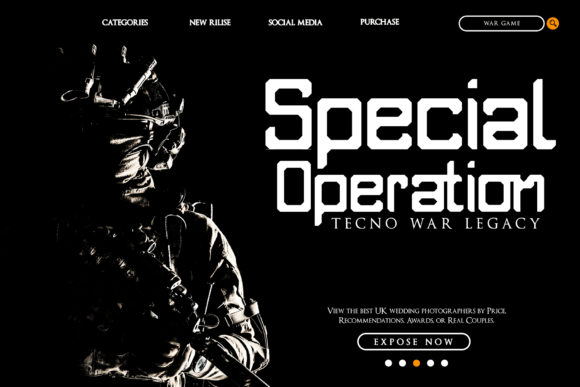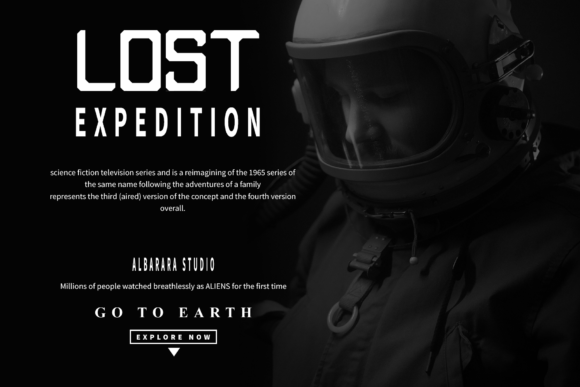
Introducing Amerggedon Font: The Modern and Cool Display Font for Designers and Crafters
Are you a designer or crafter looking for a modern and cool display font to elevate your creative projects? Look no further than Amerggedon Font, a stunning and versatile font designed by Kong Font Studio. In this article, we’ll dive into the features and benefits of Amerggedon Font, and explore how it can enhance your designs and crafts.
What is Amerggedon Font?
Amerggedon Font is a modern and cool display font that’s perfect for designers and crafters who want to add a touch of sophistication and style to their projects. With its sleek and contemporary design, Amerggedon Font is ideal for a wide range of applications, from logos and branding to crafts and DIY projects.
Key Features of Amerggedon Font
- Modern and Cool Design: Amerggedon Font boasts a modern and cool design that’s sure to turn heads. Its sleek lines and contemporary style make it perfect for designers and crafters who want to create fresh and stylish projects.
Benefits of Using Amerggedon Font
So, why should you choose Amerggedon Font for your design or craft project? Here are just a few benefits of using this amazing font:
- Add a Touch of Sophistication: Amerggedon Font adds a touch of sophistication and style to any project. Its modern design and sleek lines make it perfect for creating professional-looking logos, branding, and marketing materials.
- Stand Out from the Crowd: With Amerggedon Font, you can create unique and eye-catching designs that stand out from the crowd. Its cool and contemporary design makes it perfect for crafters and designers who want to create something truly special.
- Easily Customizable: Amerggedon Font is easily customizable, allowing you to adjust the font to suit your project’s needs. Whether you want to change the color, size, or style, Amerggedon Font makes it easy to get the look you want.
Amerggedon Font is a modern and cool display font that’s perfect for designers and crafters who want to add a touch of sophistication and style to their projects. With its sleek and contemporary design, compatibility with popular design tools, and ease of use, Amerggedon Font is a must-have for anyone looking to elevate their designs and crafts. Download Amerggedon Font today and start creating stunning and professional-looking projects!